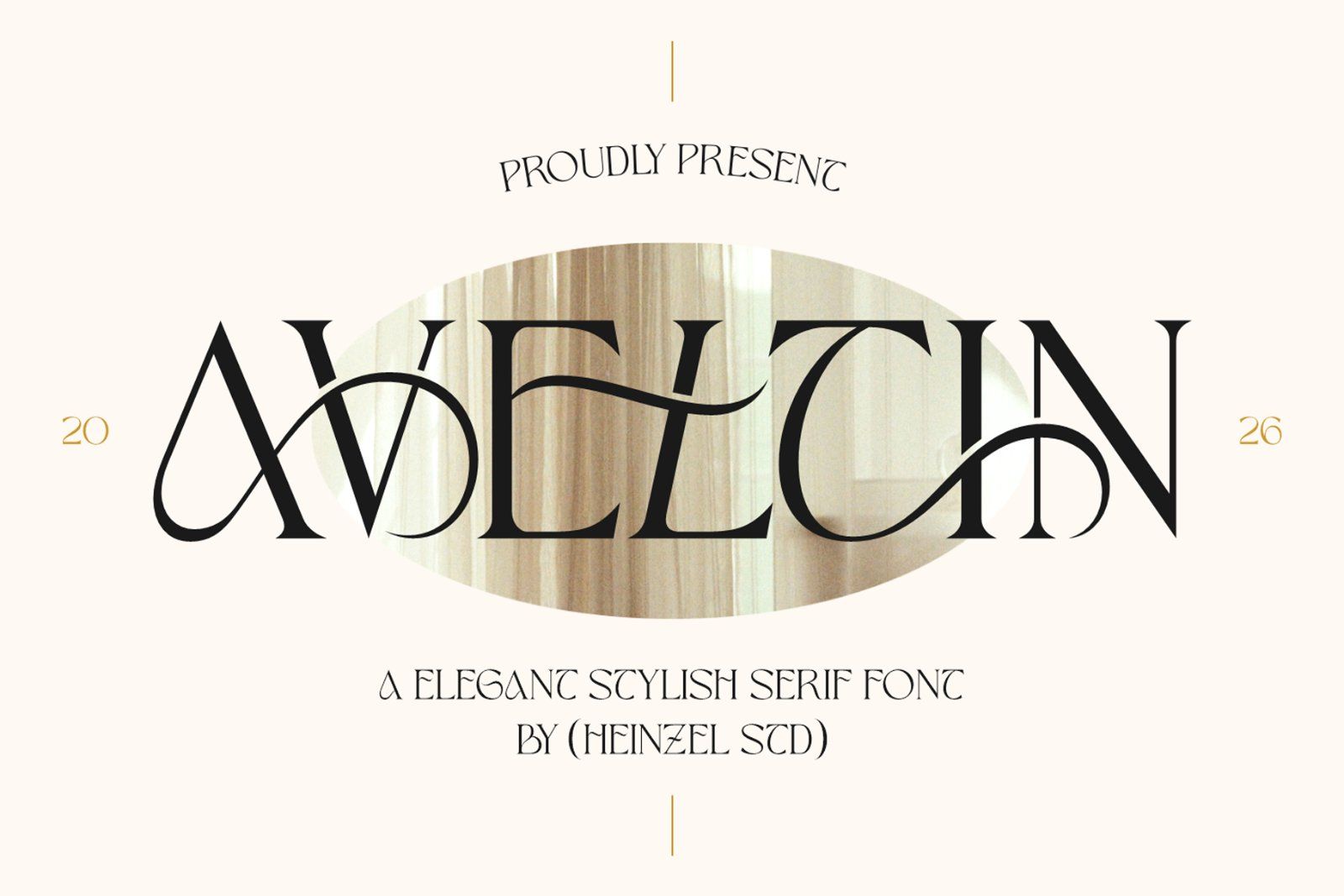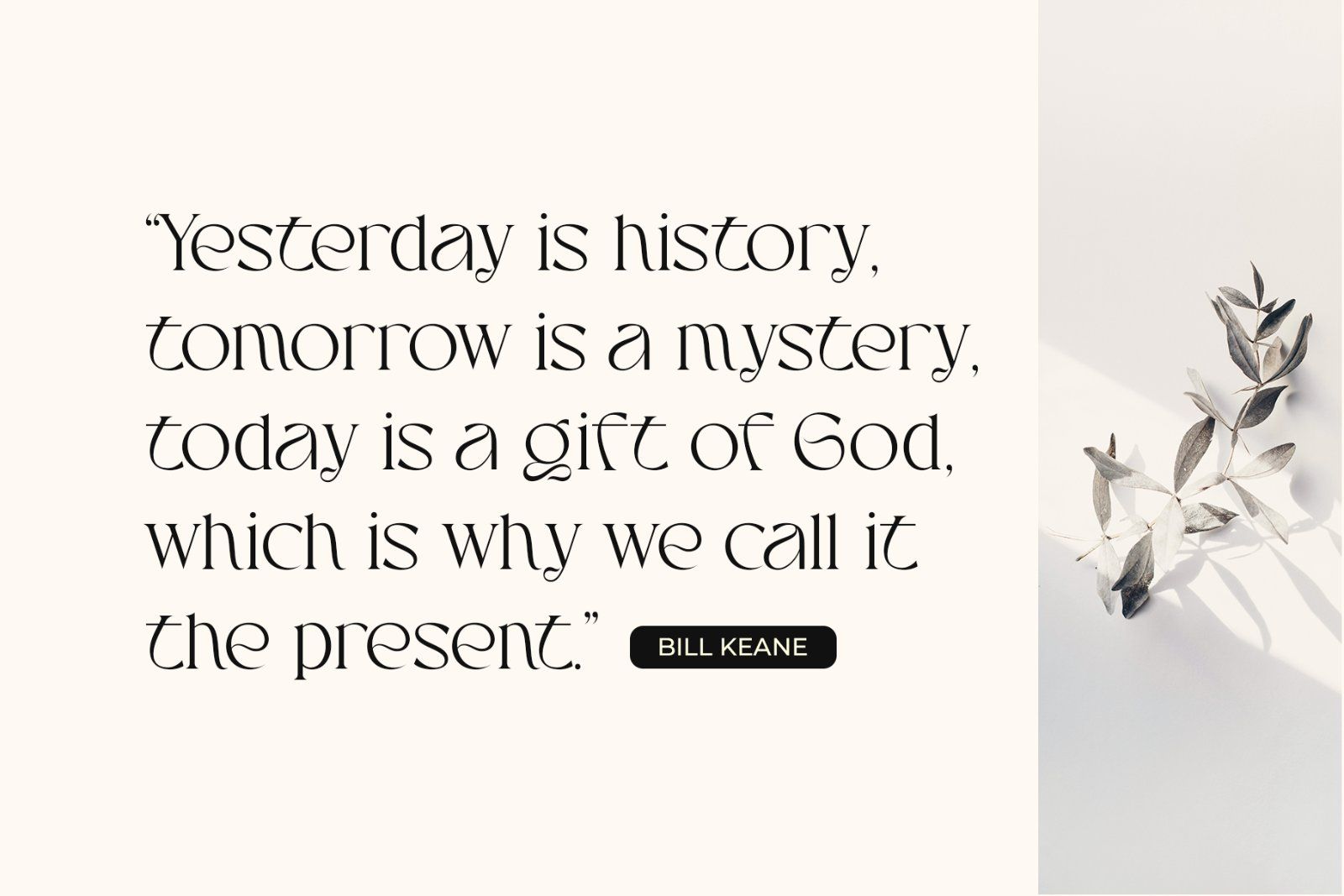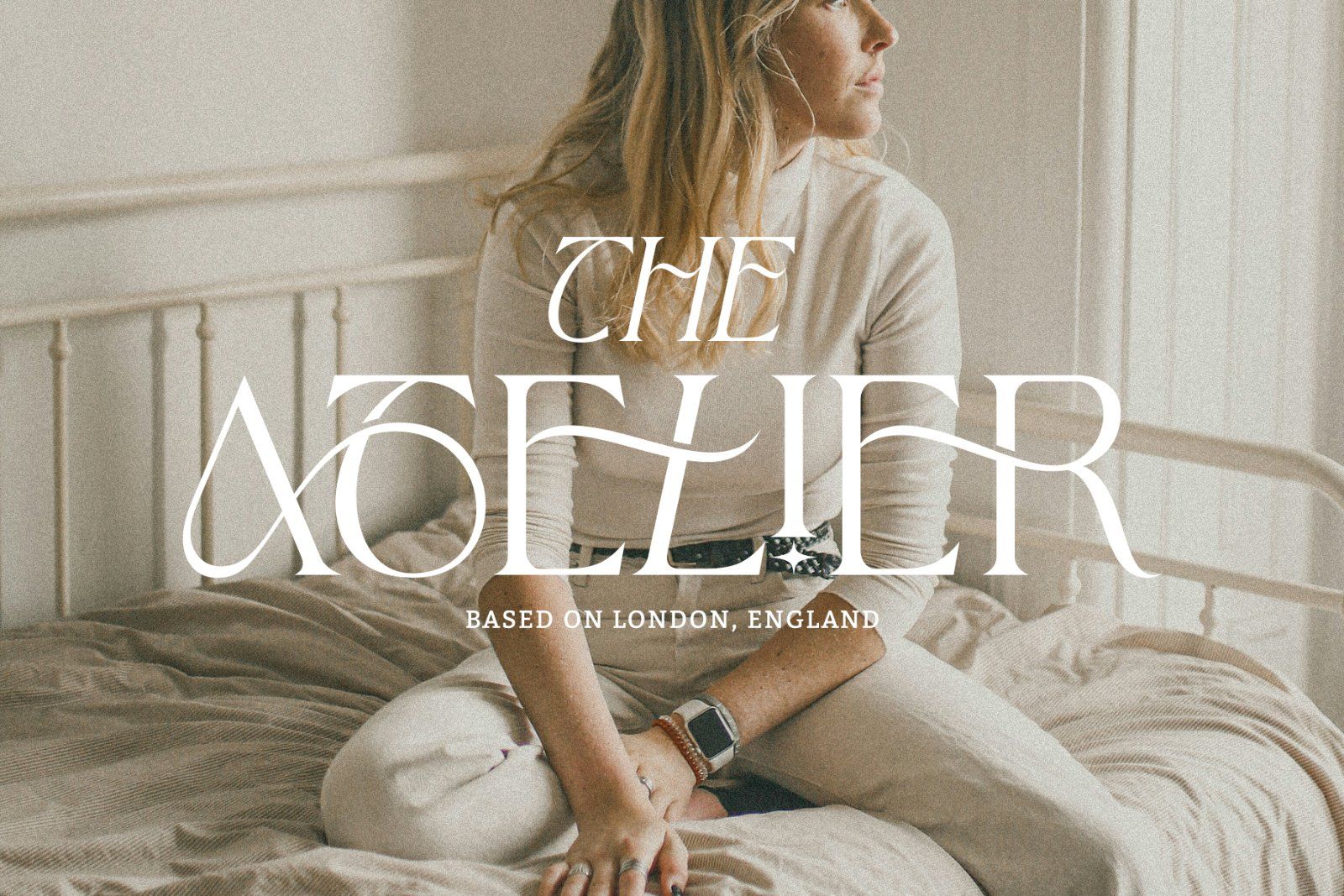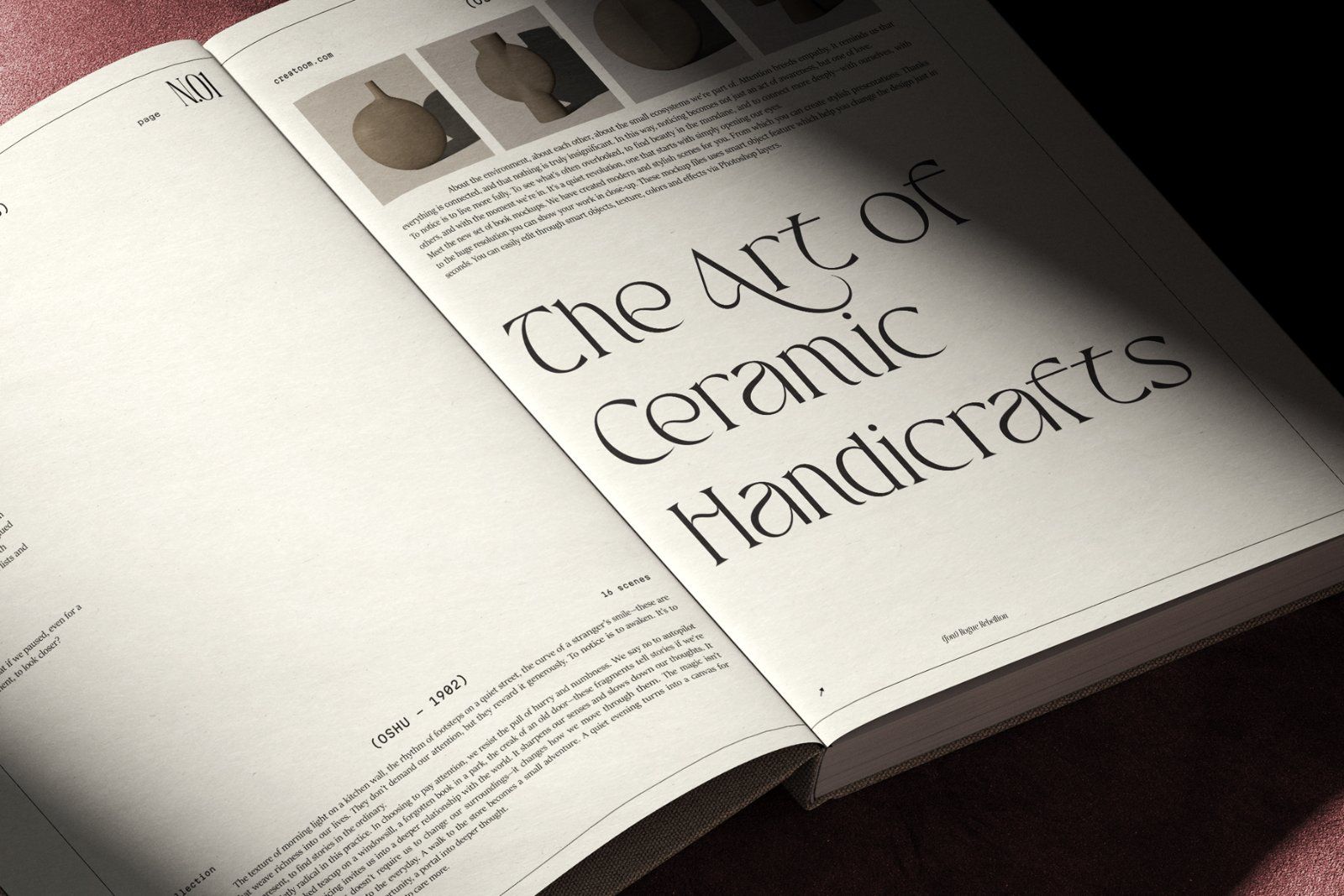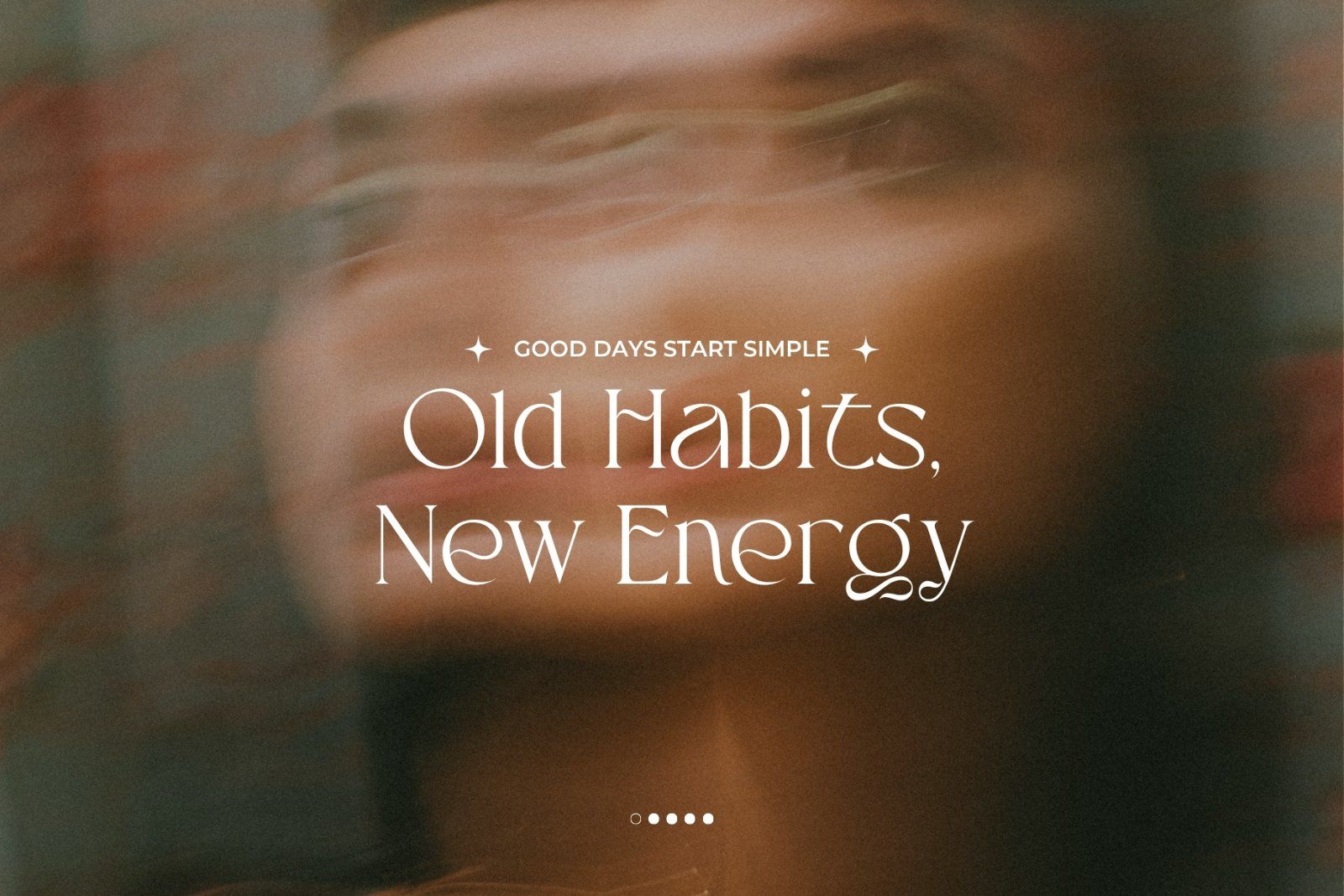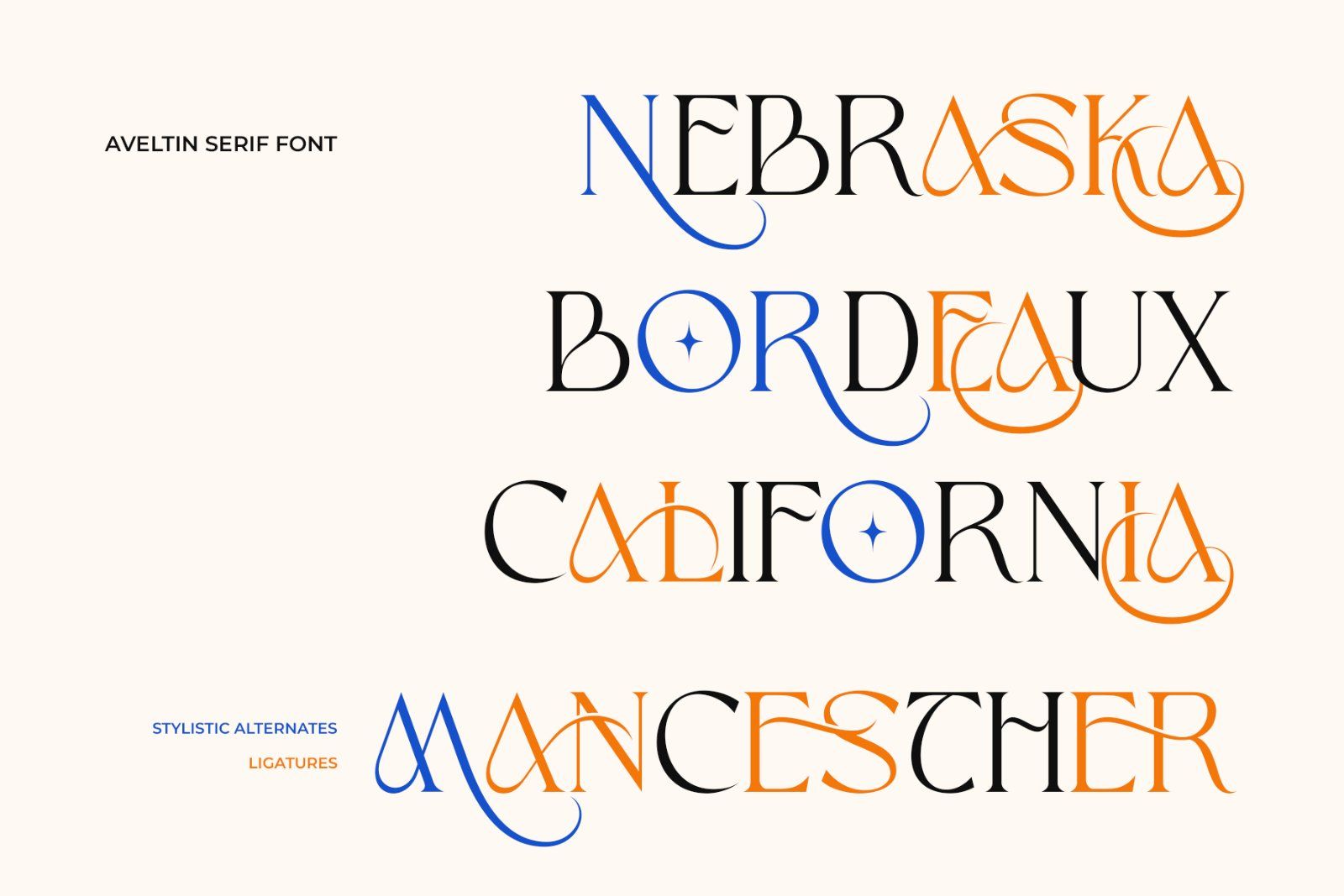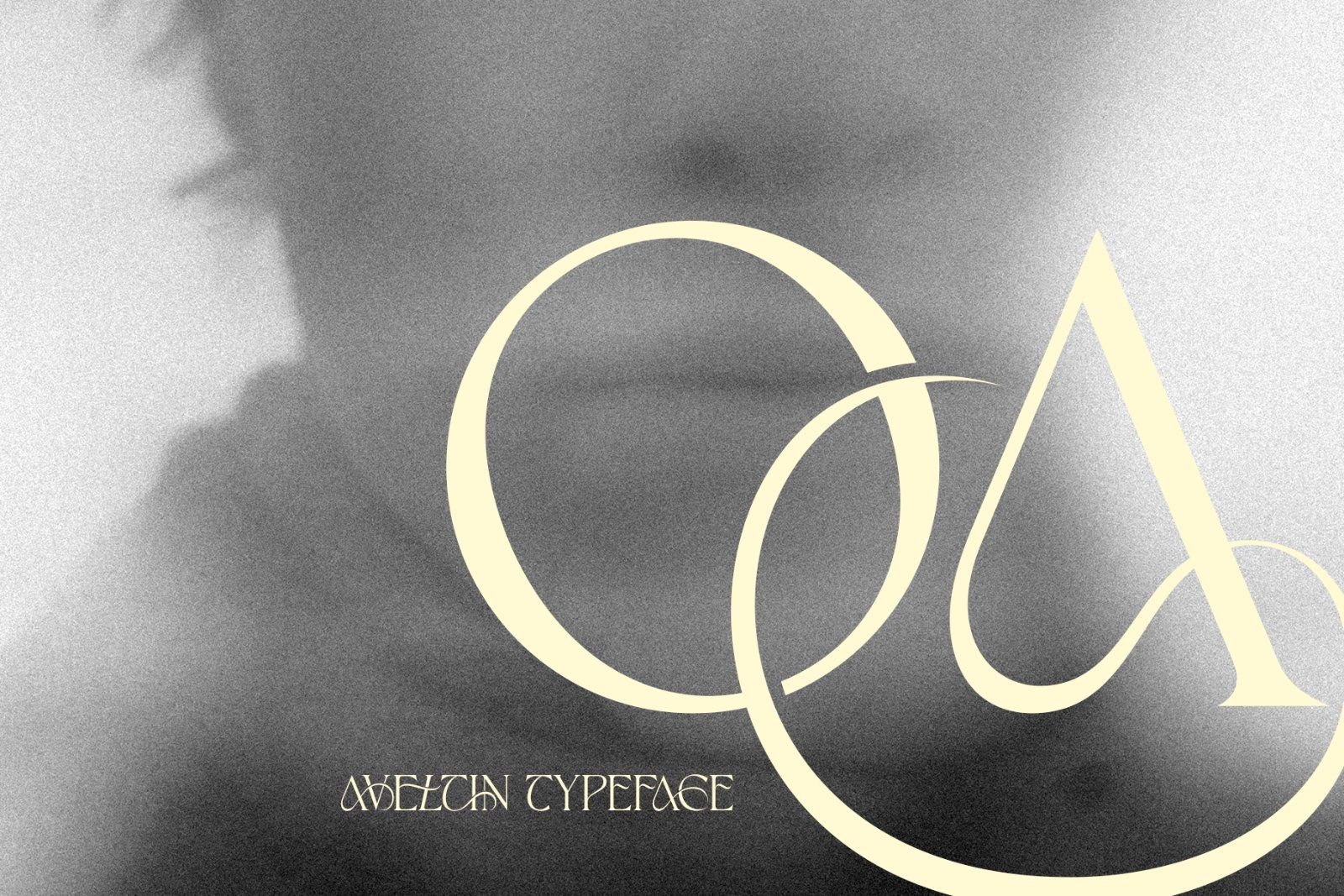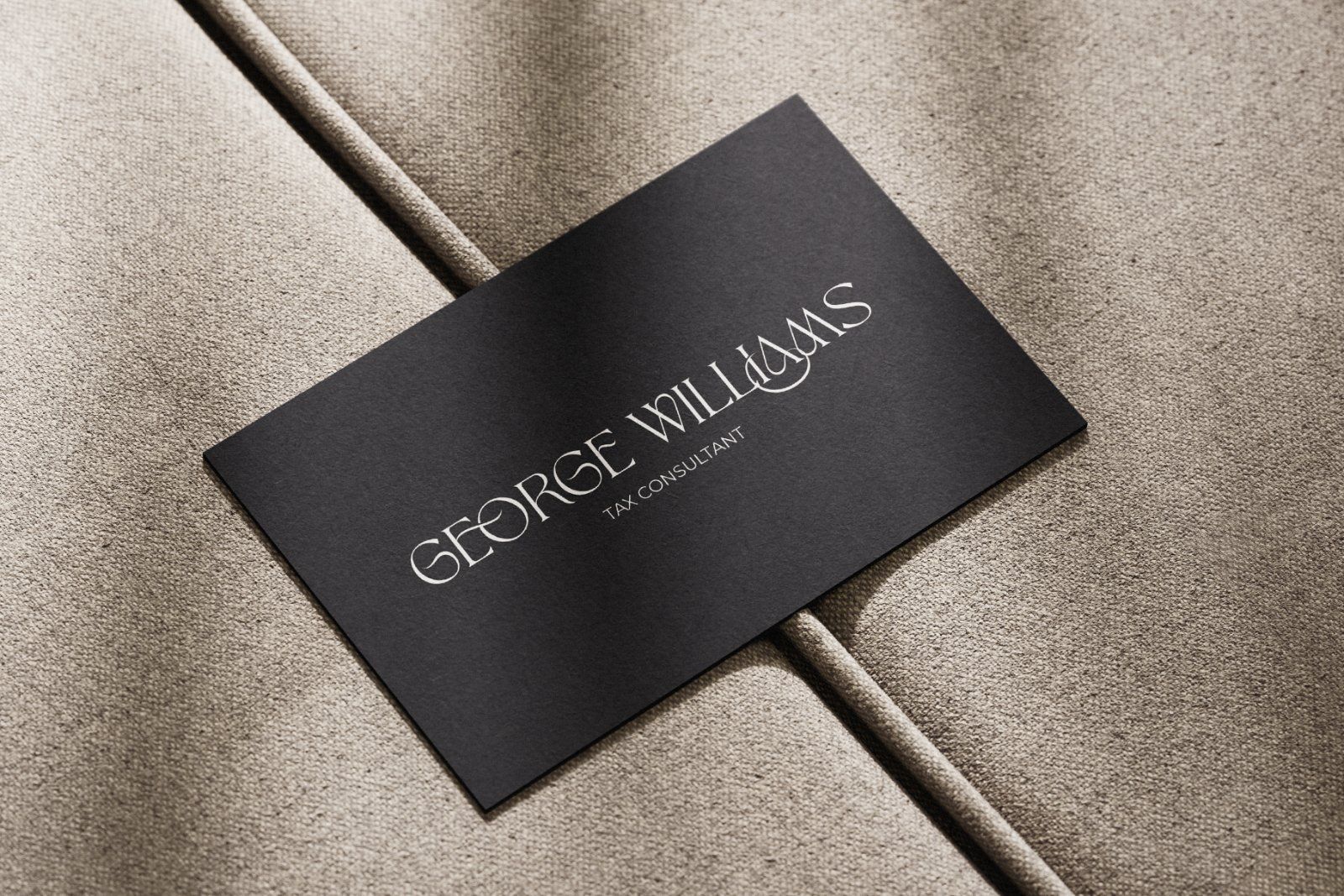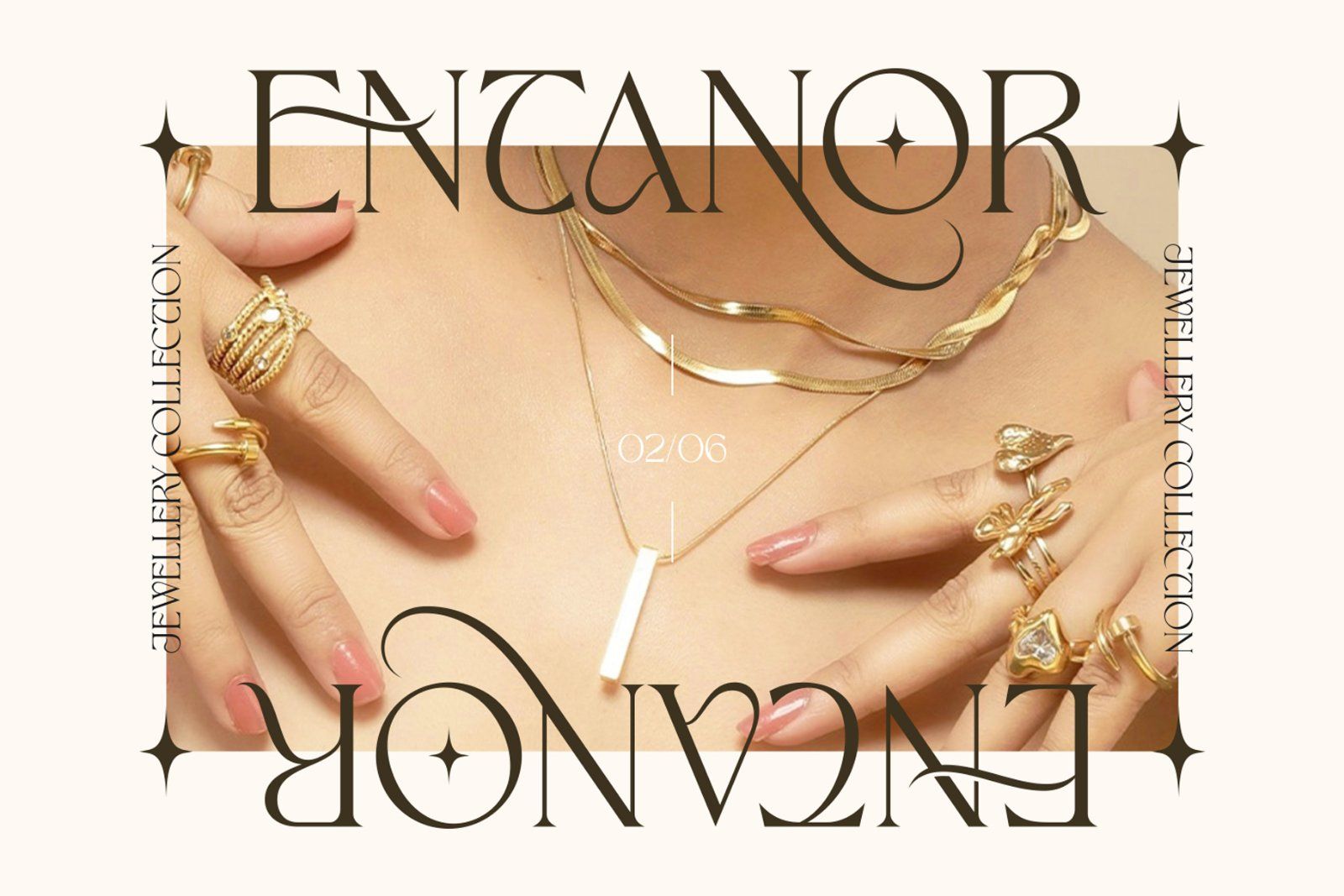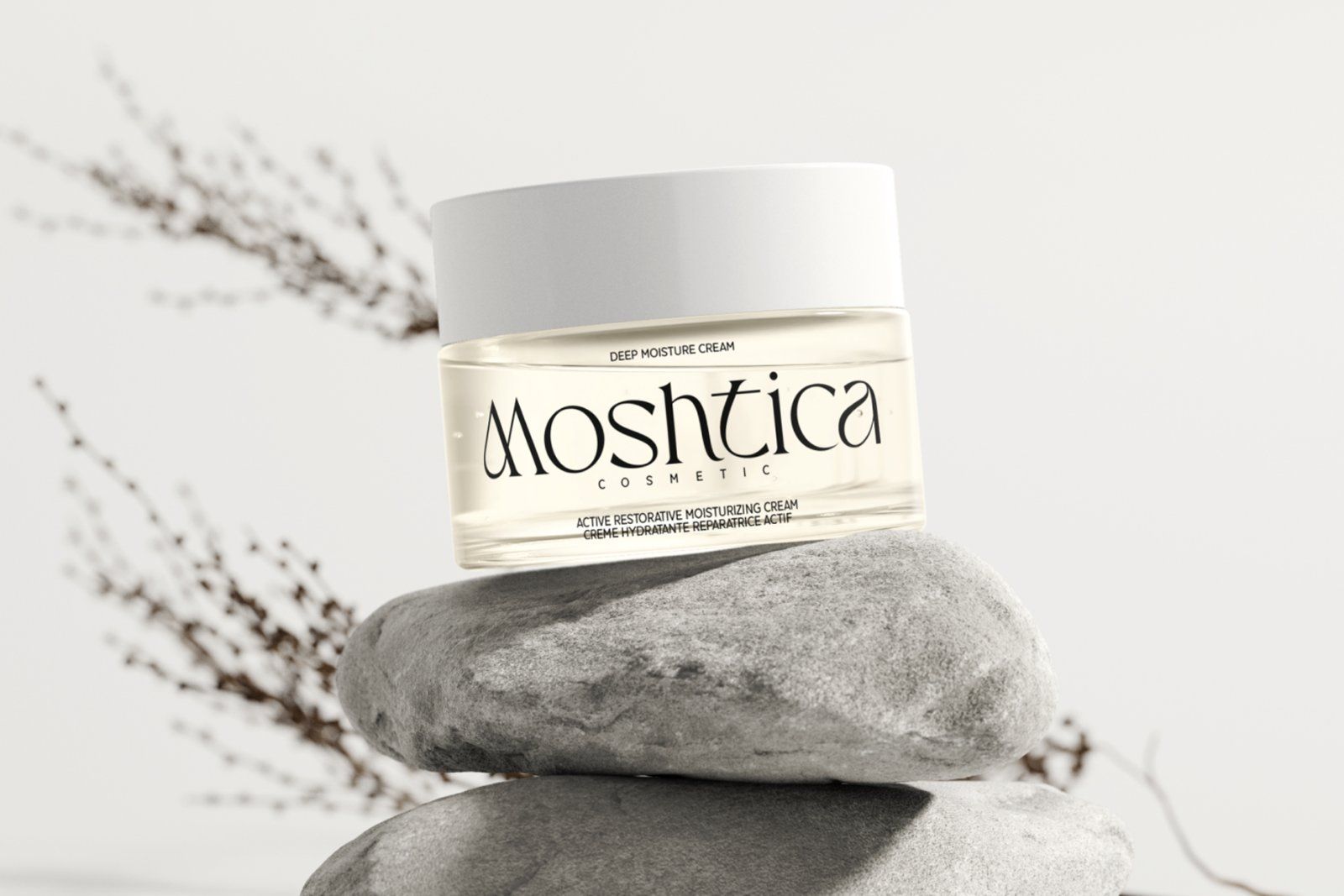
Aveltin Serif is a refined and modern serif font that blends timeless elegance with artistic flair. Designed with high contrast strokes and graceful curves, Aveltin stands out through its unique letterforms, making it perfect for luxury branding, editorial layouts, fashion headlines, and sophisticated logo design.
What makes Aveltin truly distinctive is its stylish ligatures and beautifully crafted stylistic alternates, allowing designers to create expressive and customized typography with ease. Each character flows seamlessly, offering a harmonious balance between classic serif tradition and contemporary design trends.
With its eye-catching details and elegant personality, Aveltin Serif is ideal for projects that demand a premium and stylish aesthetic—whether it's for magazines, wedding invitations, packaging, or high-end branding.